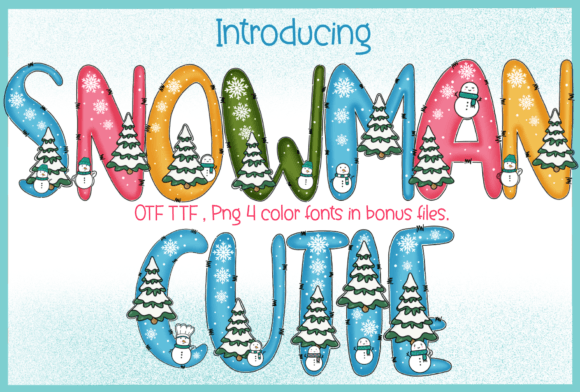
Snowman Cutie Font: The Best Fonts For a Modern Look
Looking to add a touch of magic and whimsy to your designs? Look no further than Snowman Cutie Font! This decorative font, created by Itme_digitalart, is the perfect choice for anyone seeking a delightful winter-themed typeface that will warm your heart and bring a touch of frosty fun to your projects.
With Snowman Cutie Font, each letter is playfully adorned with adorable snowmen, making it the ultimate choice for holiday cards, seasonal posters, and all your winter-themed designs. Let the charm of this font embrace the season and captivate your audience with its joyful and enchanting appeal.
Embrace the spirit of winter with Snowman Cutie Font and experience the magic it brings to your creative endeavors. Its unique and eye-catching design will instantly capture the attention of your viewers, leaving them in awe of the whimsical snowmen dancing across each letter.
This font is not only visually captivating but also highly versatile, allowing you to use it in a variety of projects. Whether you're designing a festive invitation, creating a charming logo, or adding a touch of winter magic to your social media posts, Snowman Cutie Font will elevate your creations to new heights.
The beauty of Snowman Cutie Font lies not only in its visual appeal but also in its ability to evoke emotions. The mere sight of these adorable snowmen will instantly transport your audience to a world of winter wonder and childhood joy. They'll be reminded of building snowmen, sipping hot cocoa by the fireplace, and the excitement of the holiday season.